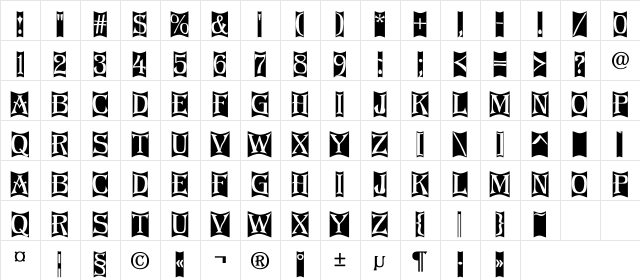
a_AlgeriusCmFtz1 Regular
Design Context for a_AlgeriusCmFtz1 Typeface
a_AlgeriusCmFtz1 is a composed and adaptable typeface that performs quietly and consistently across a wide range of design contexts.